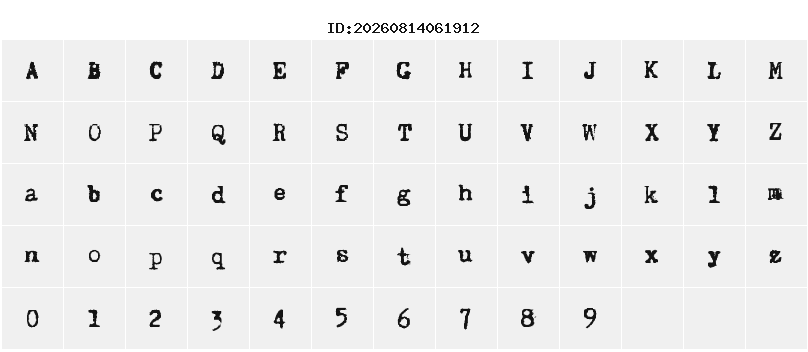
• Font Name: SuperKeys
• Designer: Xerographer Fonts
• Description: Inspired by a smith corona super G. One of Sea Monster's Typewriters. Made at Xerographer Studios Chico,CA